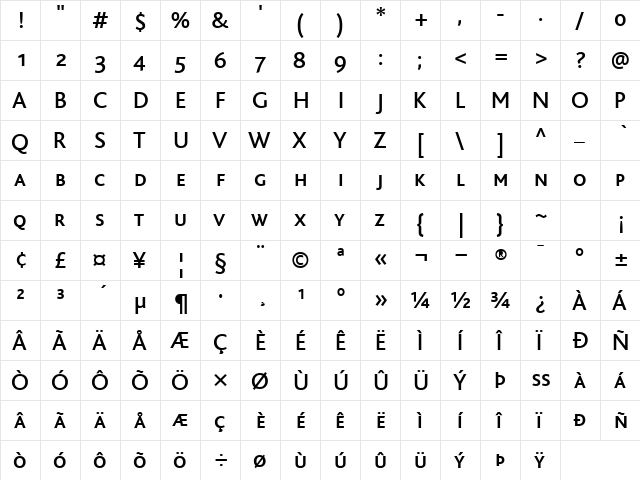
BlissCapsMedium Regular
Design Context for BlissCapsMedium Typeface
BlissCapsMedium is a composed and adaptable typeface that performs quietly and consistently across a wide range of design contexts.